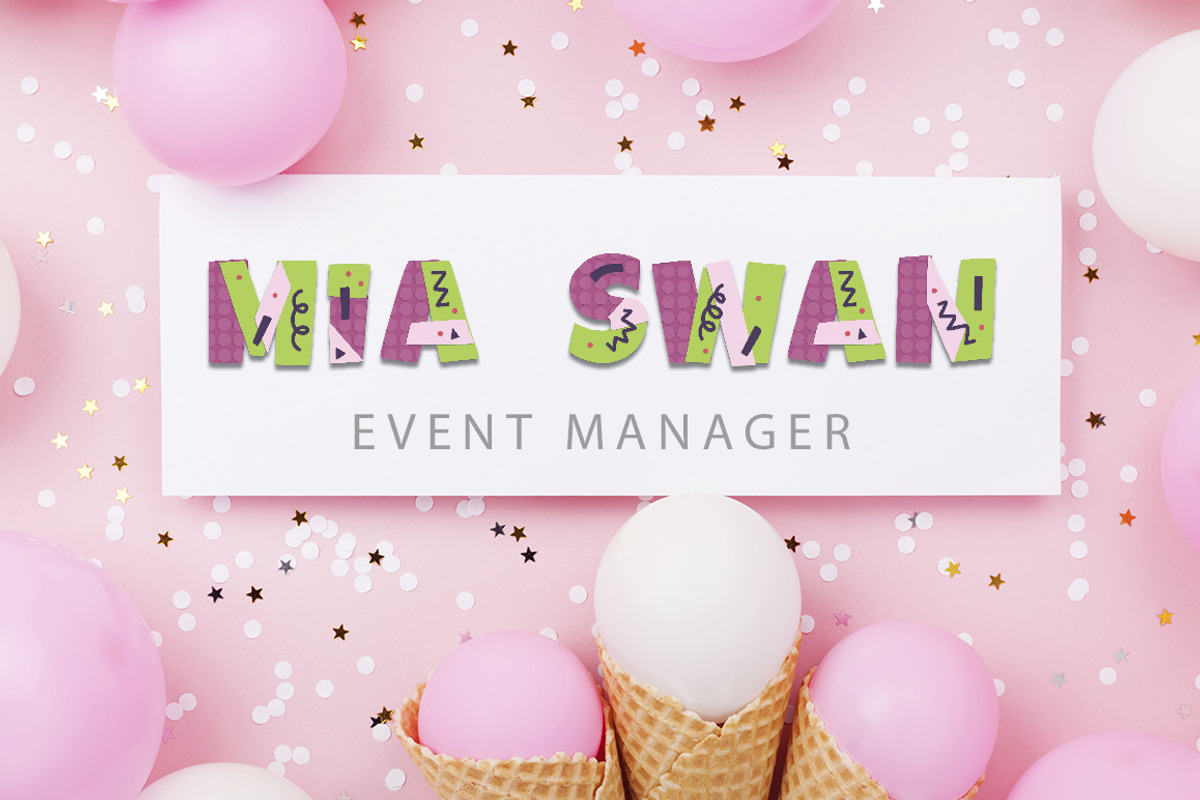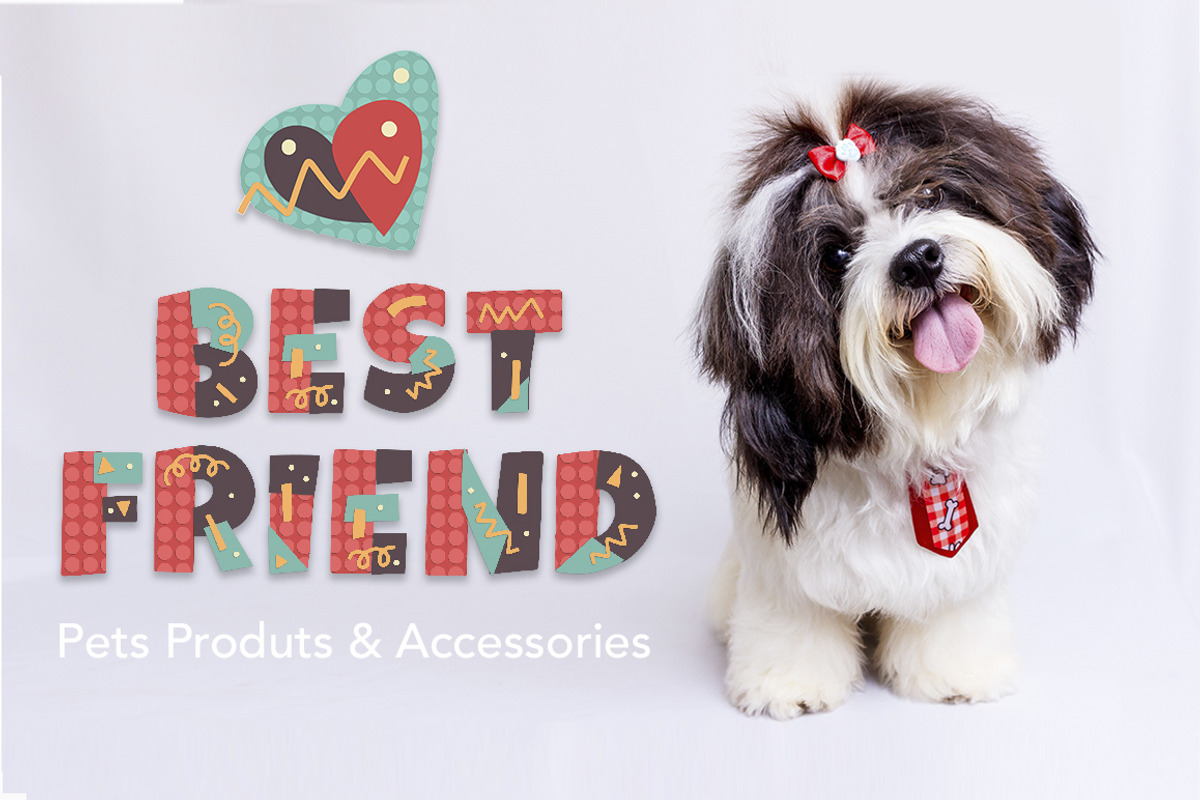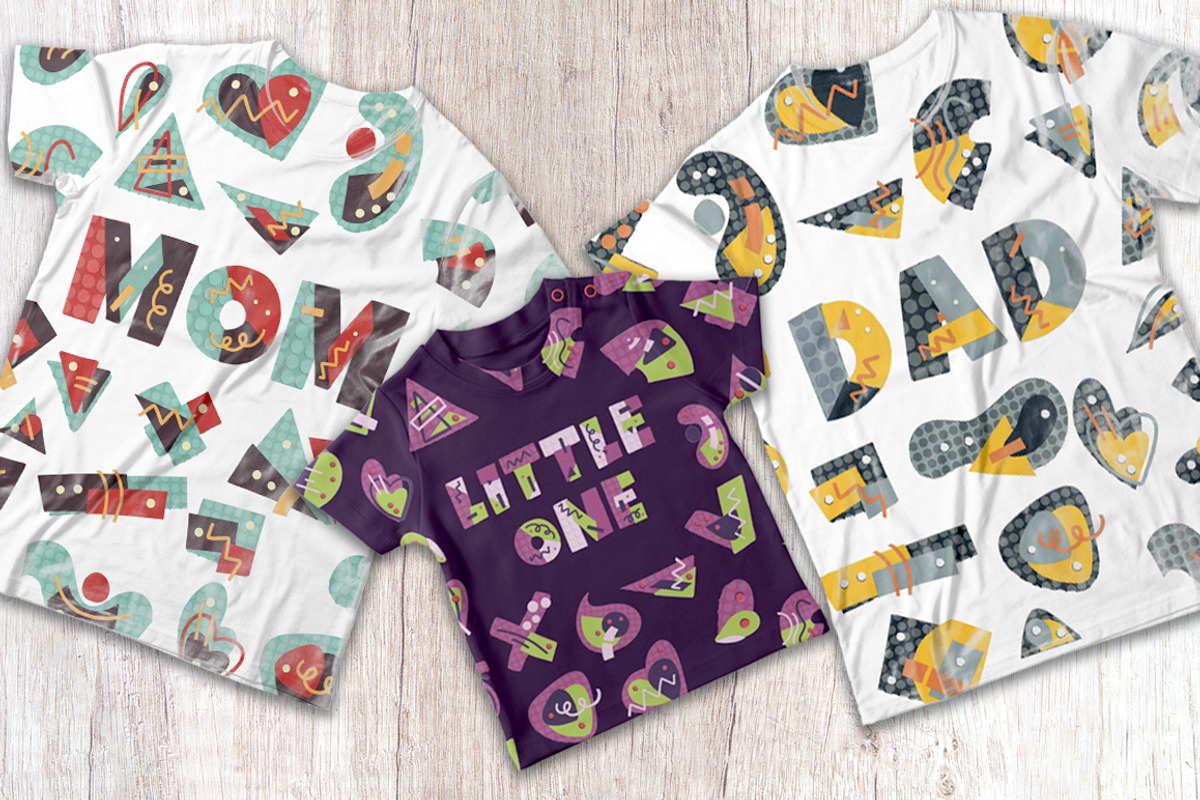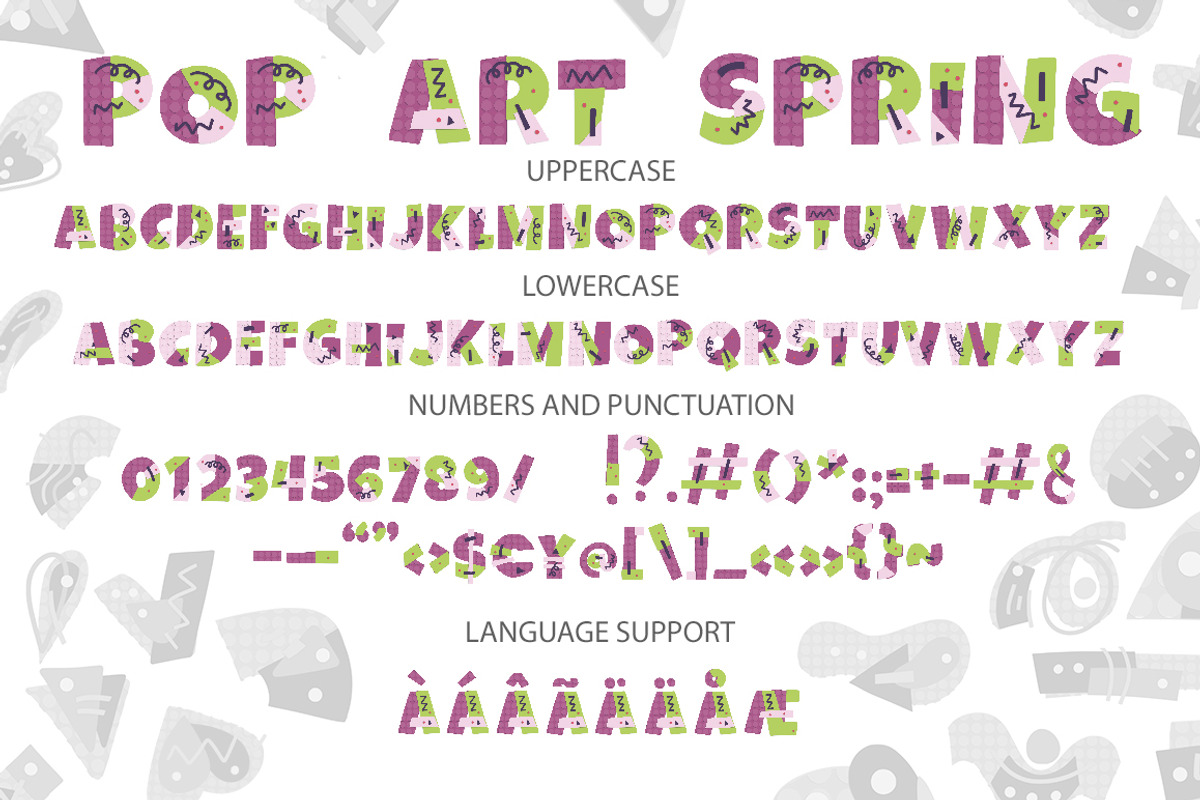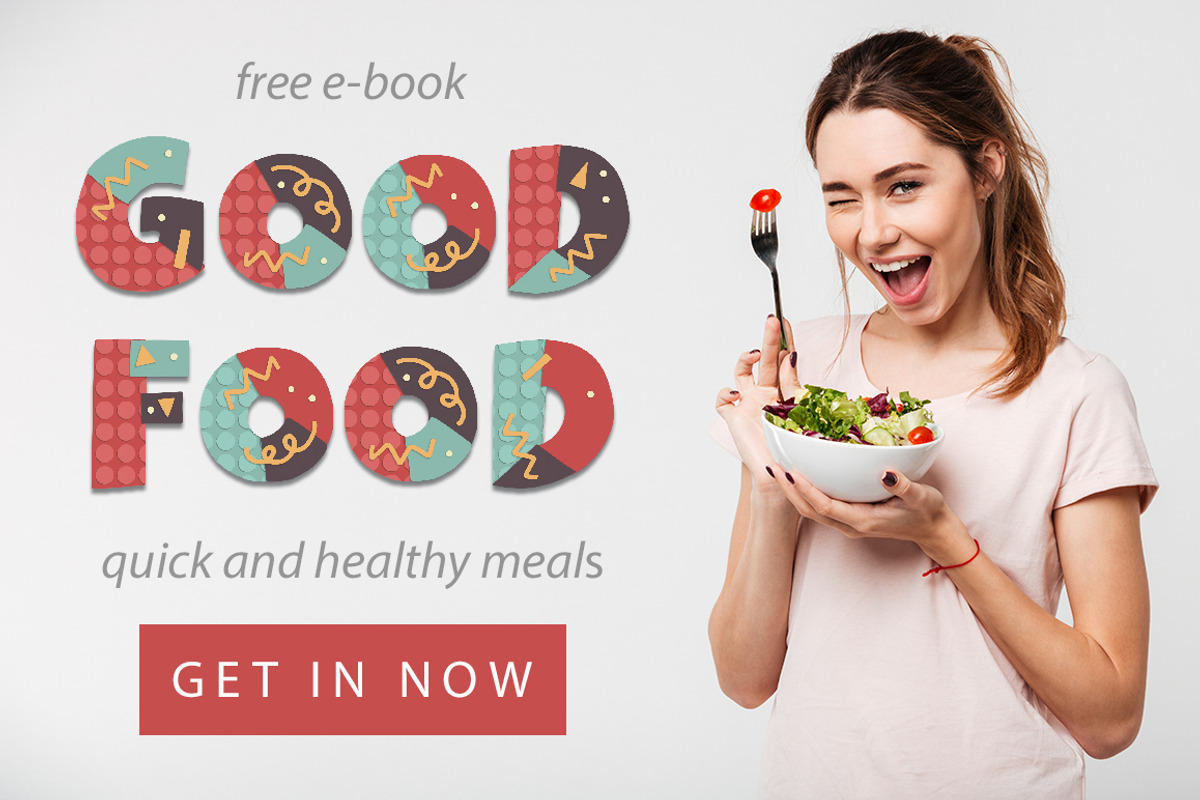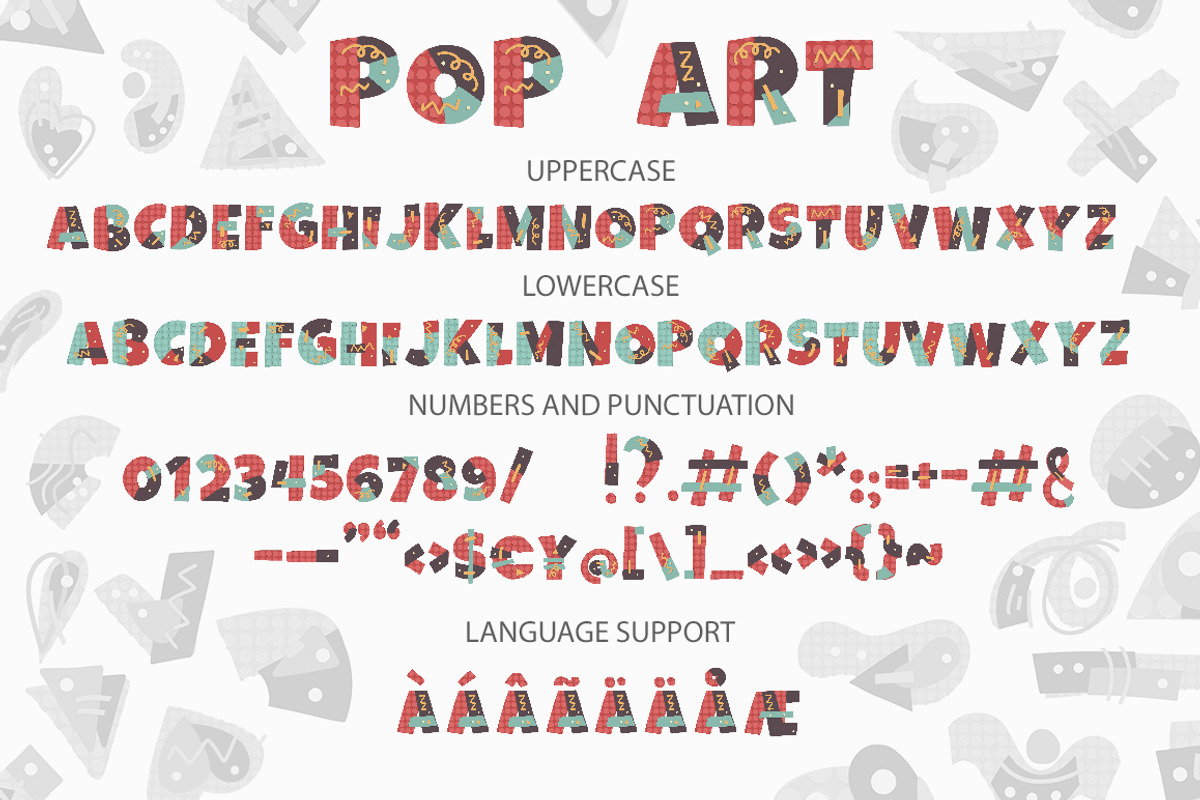
POP ART. SVG font collection.
I created three SVG Fonts, with color handdrawn letters and symbols in high resolution. There is an impression, that different pieces of colored paper are collected in a color letter, like a puzzle and preserve some little shadows and the texture of the cutout elements.
The full set of alternate letters let you to make your designs more realistic and add the real handmade feel to your letters. Just use lowercase letters for these uppercase fonts to see and use alternates.
Fonts include multilingual support. Western European, Central European and South Eastern European languages are included.